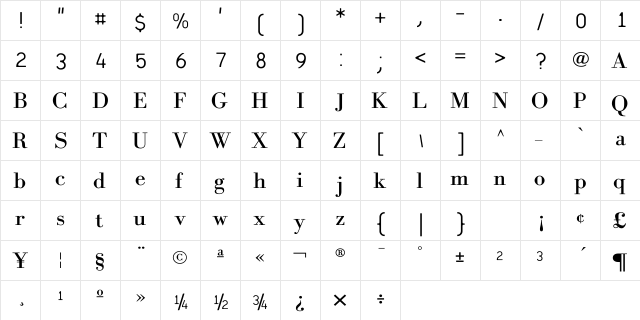
GalileoLightMF Regular Font Preview
GalileoLightMF Regular
Design Context for GalileoLightMF Typeface
GalileoLightMF takes a measured approach to typography — its balanced proportions and neutral character make it a reliable workhorse for both digital and print work. Its slender proportions lend an understated elegance to any composition.